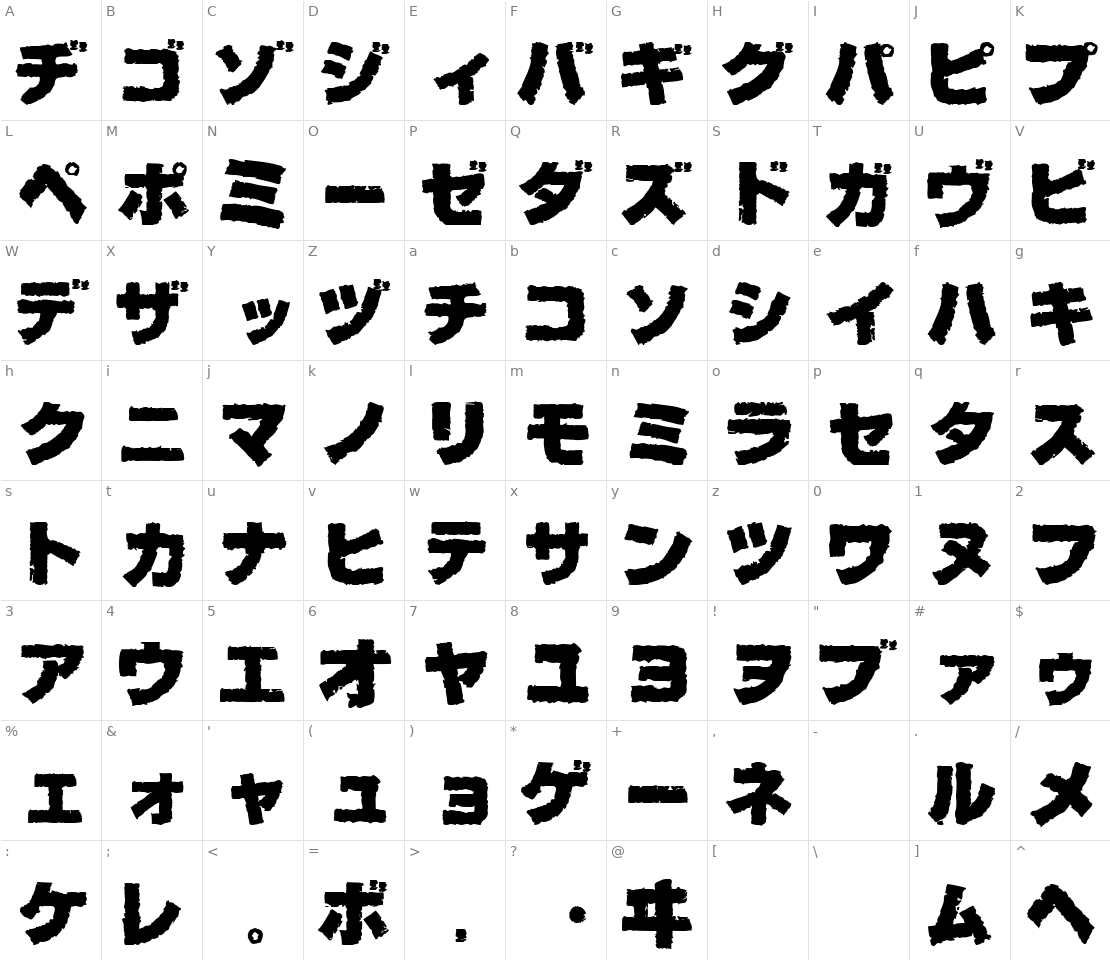
Bog
by Hiroaki Chiba
Bog is a heavy, rough-edged katakana typeface by Hiroaki Chiba with a bold brush-like quality and visible texture across every stroke. The letterforms feel hand-drawn and weathered, carrying the kind of raw energy you'd expect on punk flyers or underground zine covers. Built for Japanese display use at large sizes where the distressed detail and thick strokes can really land.